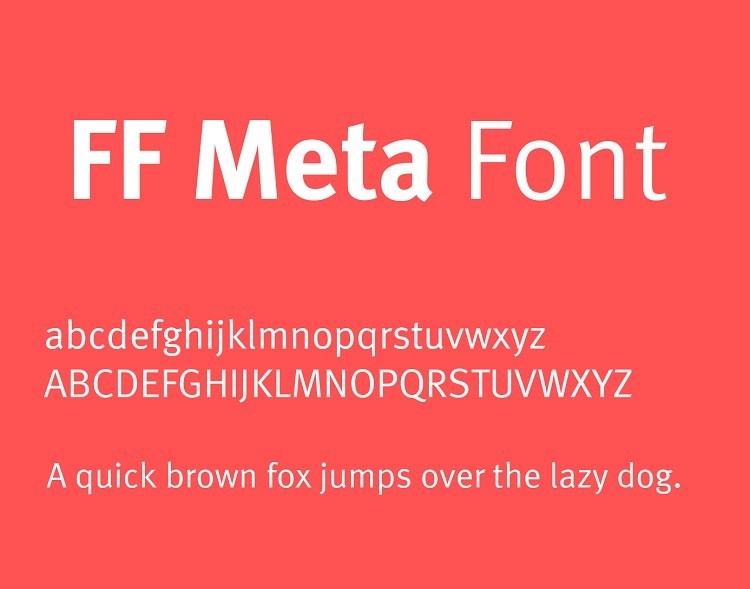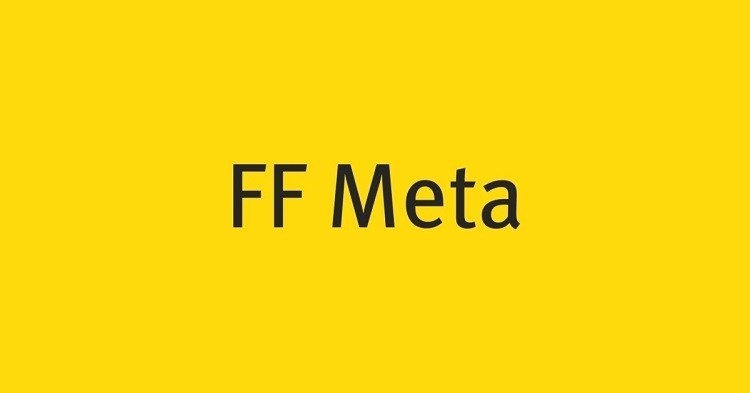
Ff Meta Font
Ff Meta Font is quitely famous for its pairing function. This is also known for its bold and italic function. This is available here for free download in a zip file. It could moreover be used to make a putting headline.